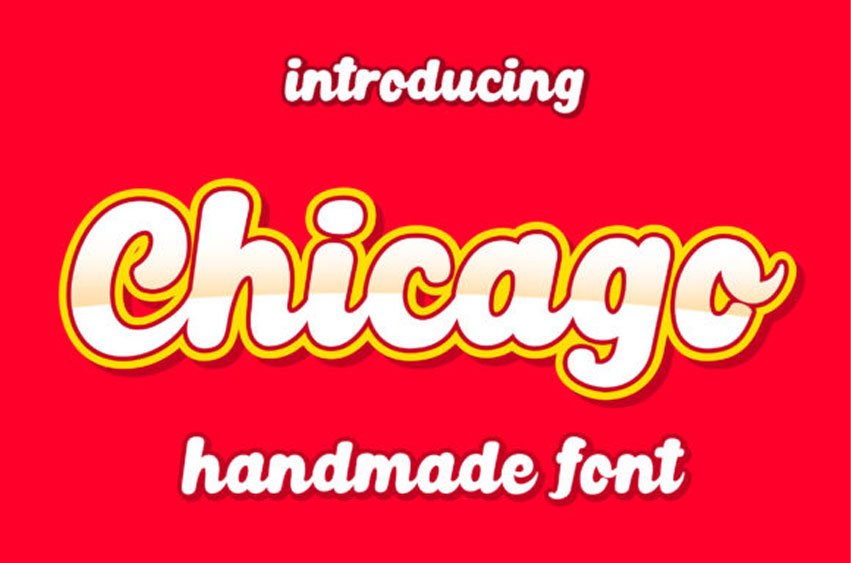
Chicago Handmade Font
Chicago Handmade Font is a bright and bold handwritten font with a vintage feel.
It will turn any design project into an eye catcher.